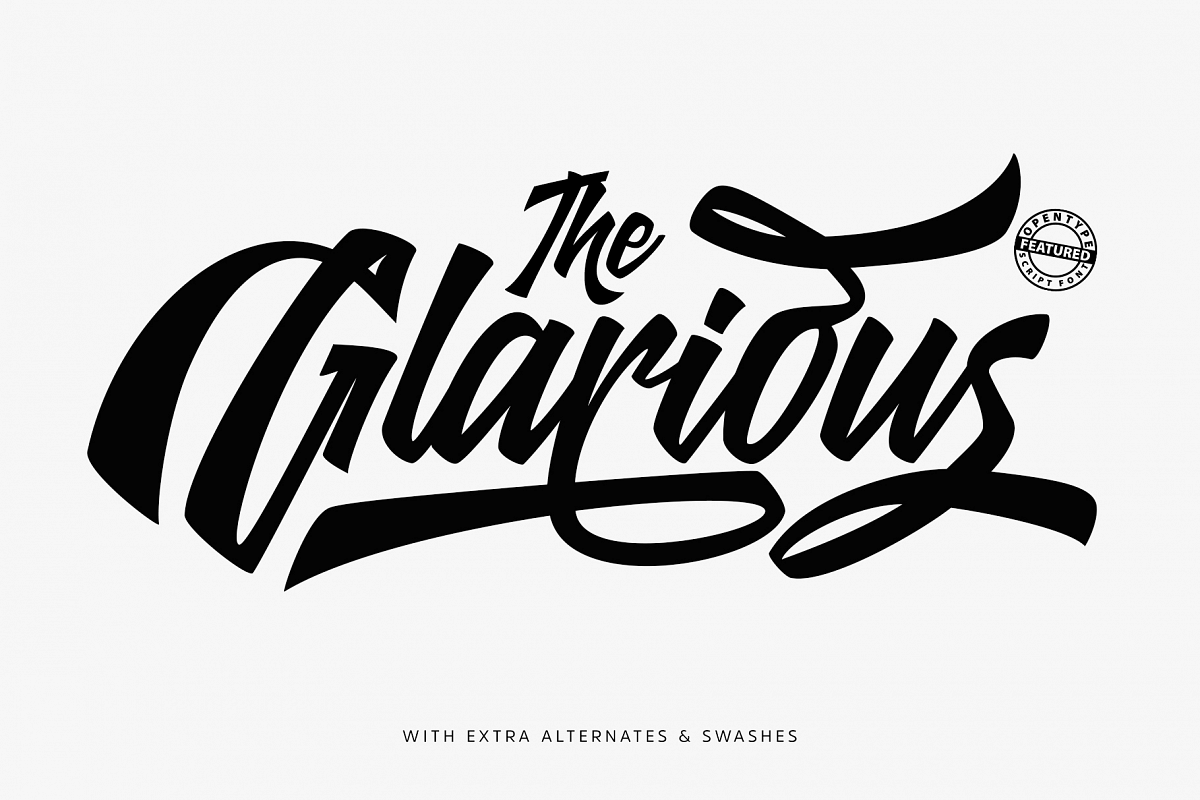
The Glarious
The Glarious is a calligraphy font that perfect for you who needs a typeface for especially logotype, apparel, invitation, branding, packaging, advertising etc. This typeface is comes in uppercase, lowercase, punctuations, symbols & numerals, stylistic alternates, swashes, also support multilingual and already PUA encoded.
Every uppercase and lowercase have their alternates, so you can custom your word as you want with this OpenType features.